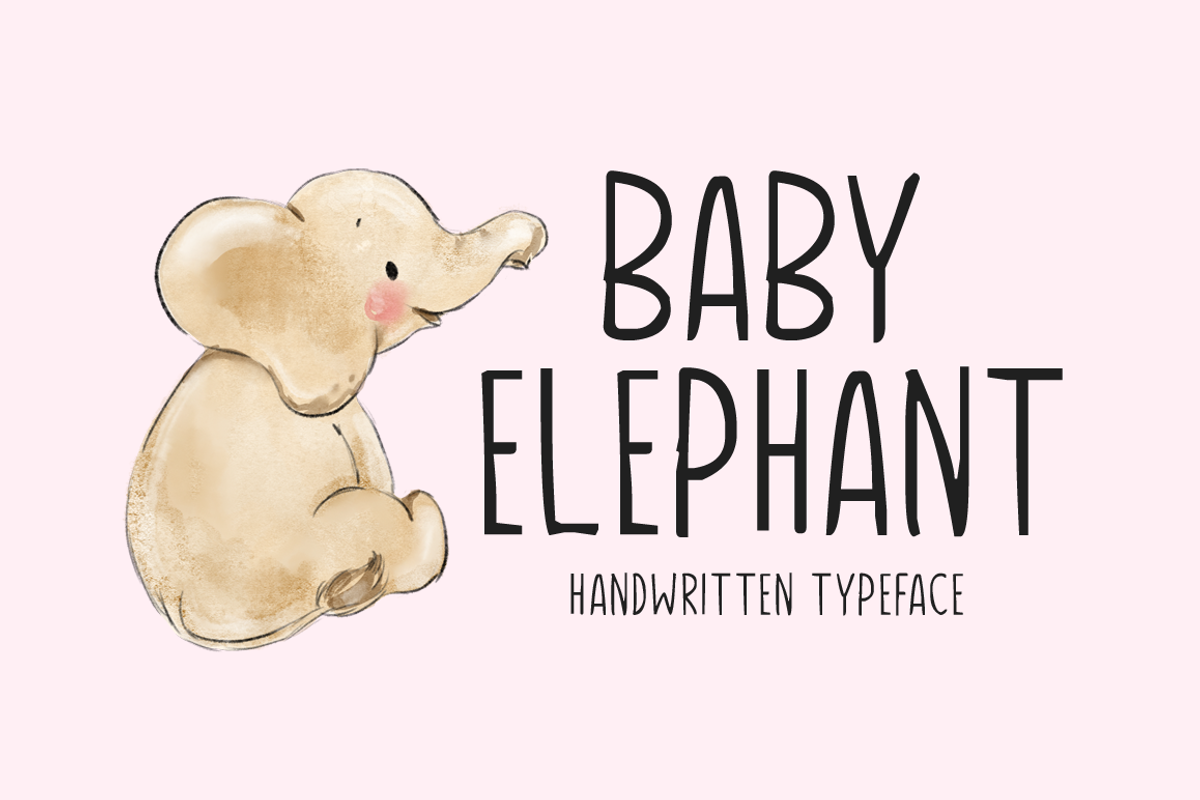
Baby Elephant is a delightful handwritten font that exudes warmth and charm, making it an excellent choice for various design projects such as stationery, logos, t-shirts, print designs, and websites.
Handwritten Style: Emulates natural handwriting, adding a personal and inviting touch to your designs.
Versatile Application: Ideal for a range of projects including invitations, branding, and social media graphics.